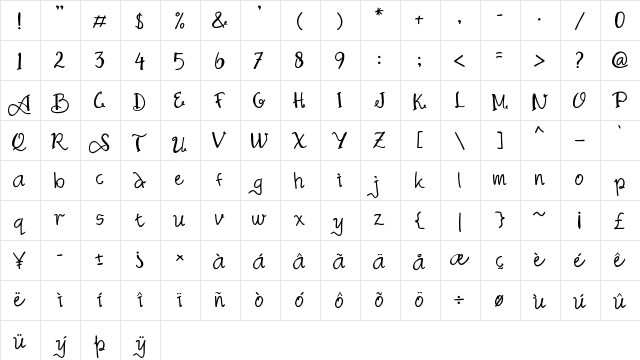
Miiy Regular Font Preview
Miiy Regular
Miiy Regular Font Details
Design Context for Miiy Typeface
Miiy is a composed and adaptable typeface that performs quietly and consistently across a wide range of design contexts.